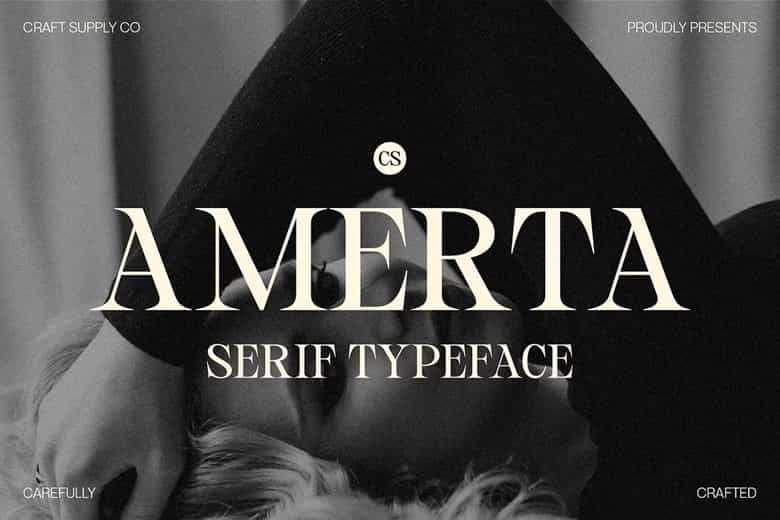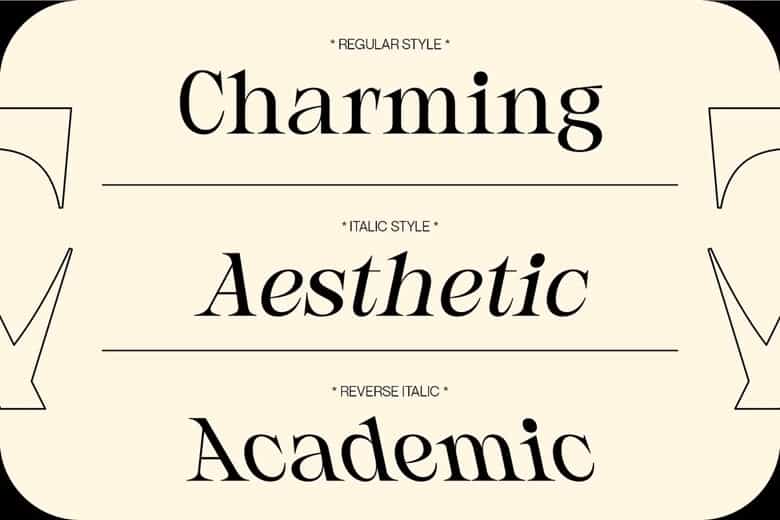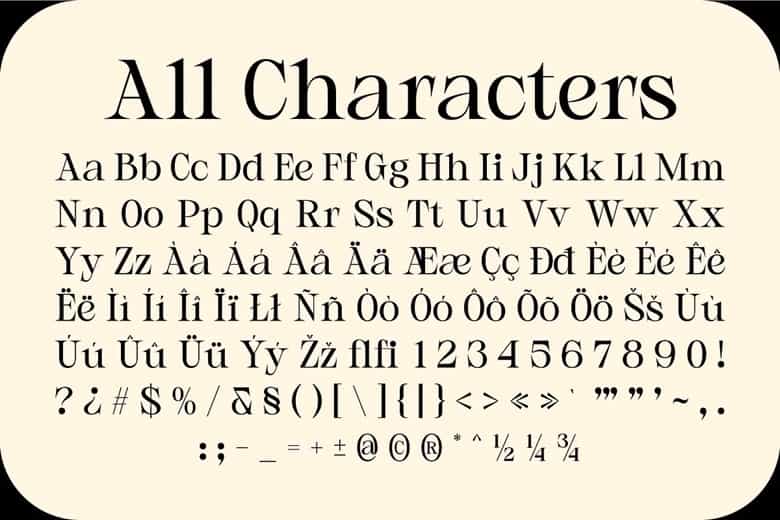
CS Amerta Font
CS Amerta is a new serif typeface, which joins the tradition of the classic elegant scripts while at the same time it is a contemporary new type face. Due to its elegant curves and nice balance in calligraphic stroke, it would best fit high end commercial logos, typefaces, and sophisticated, all other designs that need a professional look.